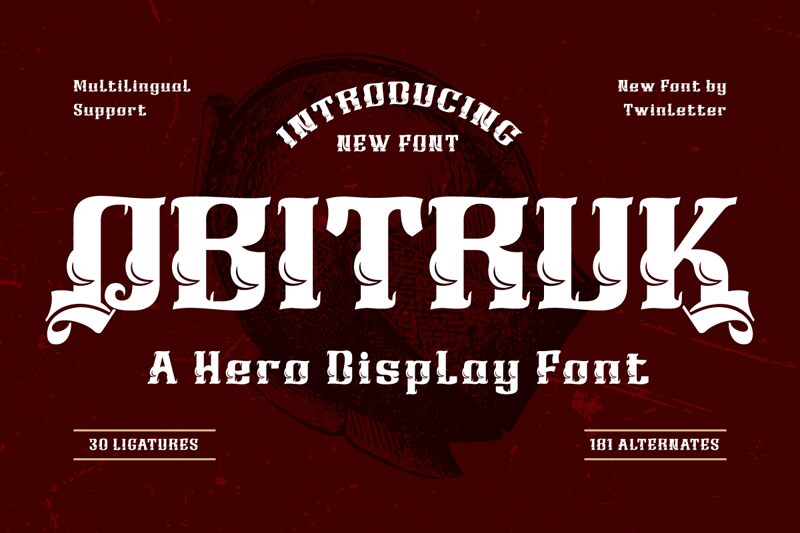
Obitruk font family is a free font designed and published by twinletter. The package includes 2 font styles with a retro vintage design that is both theatrical and ornamental. It draws historical inspiration and uses it to its advantage by including decorative details like serifs. Such characteristics give it a strong visual impact and ensure your designs have the commanding presence they deserve.
The bold aesthetic of Obitruk makes it suitable for standout designs like posters, book covers, and titles. Let each letter manifest in best quality on product packaging and labels, album covers, especially music albums, and apparel items like t-shirts, hoodies, and trousers. Posters and signage for the entertainment industry including circus, theaters, and festivals can be brought into existence with little effort.